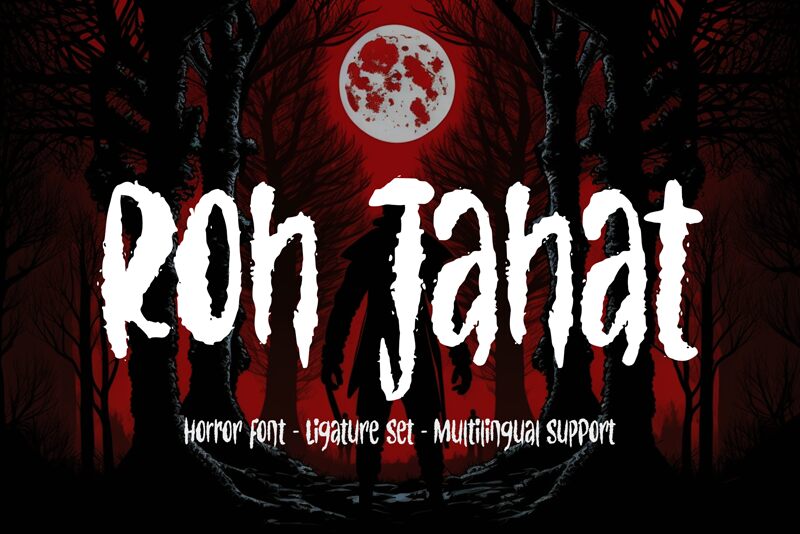
Roh Jahat
Roh Jahat font by Horror Font is an allcaps, bold font with a condensed width, scary style, and a grunge overall look. The grand letters have organic textures, irregular shapes, and an energetic expression typical of hand-pulled woodcut printing technique. Sharp corners contrast smooth curves in giving the typeface its unique flair.
Make the best of this free display font in branding design where you’d like to express a dark or scary theme. Other uses include gaming-related designs from posters and video covers to UI/UX (booking or not!). Logos for gaming equipment are another possibility alongside movie posters’ title headings.